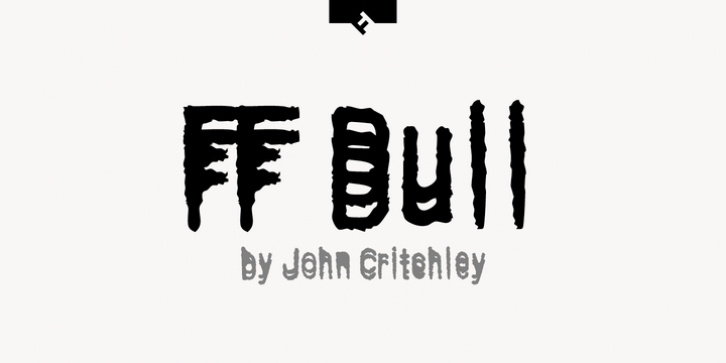
FF Bull downloadDesigner: John Critchley
Publisher: FontFont
British type designer John Critchley created this display FontFont in 1995.
The family has 6 weights, and is ideally suited for festive occasions, film and tv as well as poster and billboards.
FF Bull provides advanced typographical support with features such as ligatures and case-sensitive forms.
It comes with proportional lining figures.